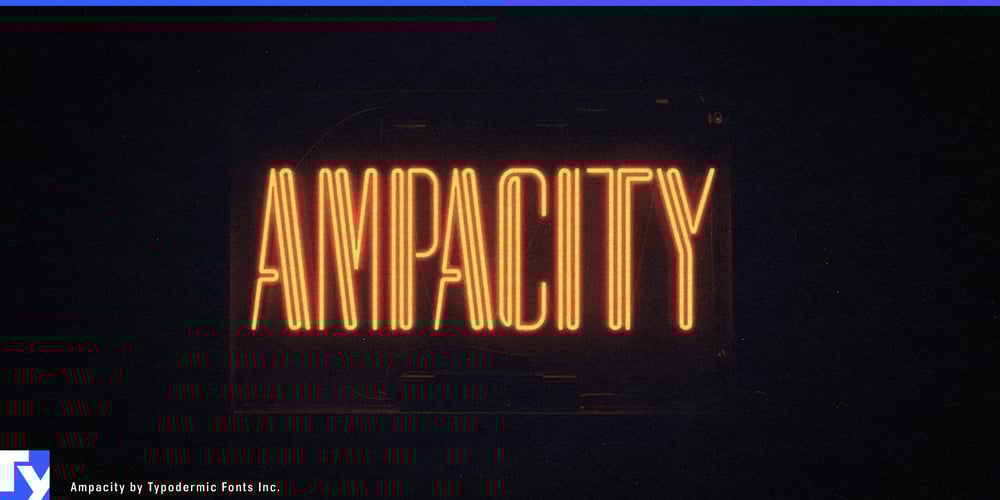
Ampacity Font Family was designed by Ray Larabie and published by Typodermic. Ampacity contains 1 styles and family package options. Step into the dazzling world of Ampacity, where typography meets the mesmerizing allure of neon. This sleek headline typeface doesn’t just catch the eye—it electrifies the entire design landscape. Drawing inspiration from the iconic Led Zeppelin “Coda” album cover, Ampacity brings a rock ‘n’ roll edge to your visual compositions.At its core, Ampacity is a study in refined minimalism. Its slim profile cuts through the visual noise, delivering impact without bulk. This compact design philosophy sets Ampacity apart in a sea of overworked neon fonts, offering designers a truly distinctive voice. The typeface’s crowning jewel? An alternative mirrored “A” that adds an extra jolt of creativity to your layouts.Imagine your headlines glowing with the intensity of a late-night cityscape. Ampacity’s forms evoke the bends and flows of hand-crafted neon tubing, bringing an artisanal touch to digital design. It’s equally at home adorning album covers, illuminating festival posters, or adding a retro-futuristic spark to branding projects.But Ampacity’s brilliance isn’t limited to English-speaking audiences. This versatile typeface fluently expresses itself across a vast array of Latin-based writing systems. From the fjords of Norway to the pampas of Argentina, Ampacity ensures your message shines bright. It effortlessly adapts to languages as diverse as Vietnamese and Swahili, allowing your designs to radiate on a global stage.In a world where mediocre typography often dims the impact of great ideas, Ampacity stands as a beacon of originality. It’s more than a font—it’s a statement, a mood, an experience. For designers who refuse to blend into the background, Ampacity offers a chance to truly light up the night.Don’t let your next project flicker in obscurity. Choose Ampacity, and watch your designs crackle with electric potential.